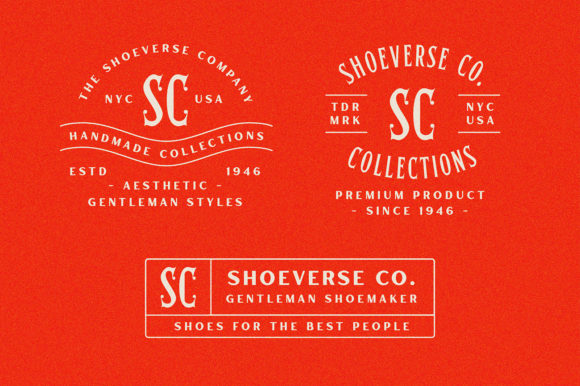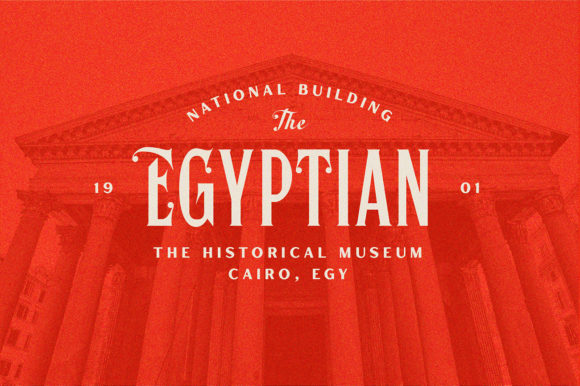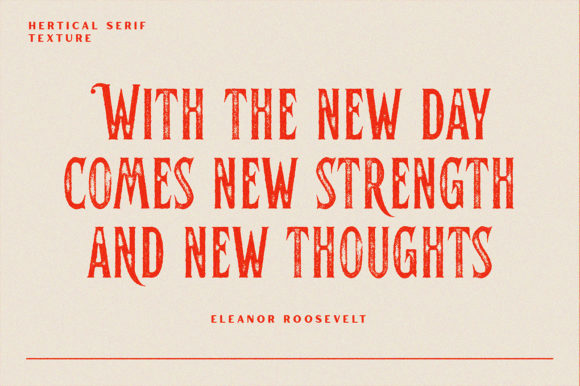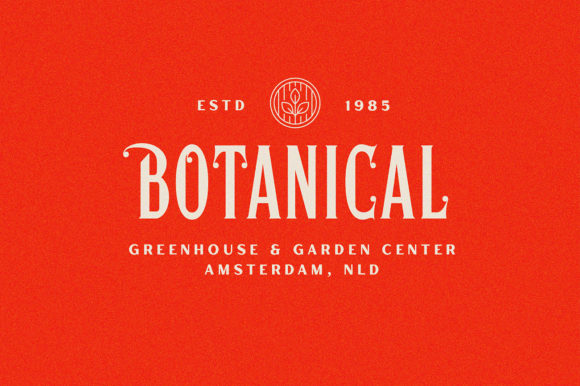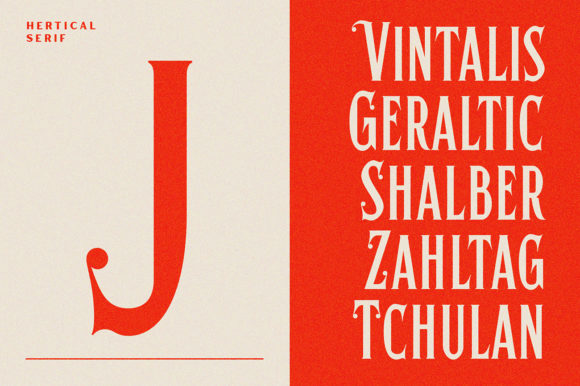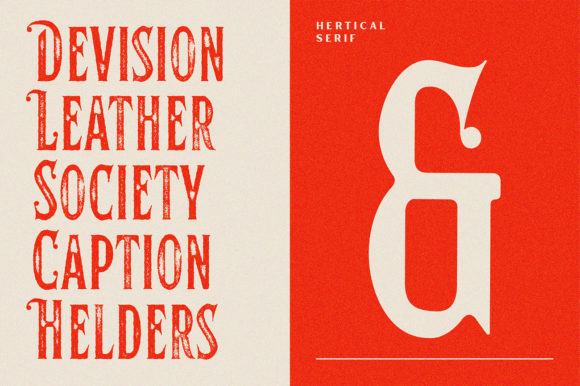
Introduction to Hertical Font
Introducing the Hertical Font, a stylish and unique font family that’s sure to elevate your designs to the next level. Whether you’re creating posters, thank you cards, quotes, or logos, this versatile font is the perfect addition to your design resource toolbox. With its high-quality, intricate details, the Hertical Font is a game-changer for designers looking to add a creative touch to their projects.
Not only will the Hertical Font help you stand out from the crowd, but it’s also incredibly easy to use, thanks to its transparent background and free download option. So why settle for ordinary when you can have extraordinary? Get ready to unleash your creativity with the Hertical Font and take your designs to new heights!
Key Features of Hertical Font
- Unique, creative font style ideal for a variety of design projects, including digital art, graphics, and web design.
- Transparent background, allowing for easy layering and blending with other design elements.
- Perfect for use in logos, headings, and body text, adding a touch of elegance and sophistication to any design project.
- Includes a comprehensive character set, including uppercase and lowercase letters, numbers, and punctuation marks, for complete versatility.
Honest Review: Hertical Font
I recently had the chance to work with Hertical Font on a creative project, and I must say it’s been a game-changer. This high-quality font is perfect for anyone looking to add a unique touch to their design. ✨
The Hertical Font features a transparent background, which makes it incredibly versatile and easy to use. Whether you’re working on a digital design or a print project, this font is sure to impress. I particularly love how easy it is to customize and manipulate the font to fit my needs. ✨
- Transparent background for easy use and customization
- Easy to manipulate and customize
However, I do have a few minor complaints. ⚠️ The font can be a bit overwhelming if used in large quantities, and the kerning can be a bit off at times. But overall, these are minor issues that don’t detract from the overall quality of the font.
Overall, I’m thoroughly impressed with Hertical Font. It’s a great addition to any designer’s toolkit, and I highly recommend it to anyone looking for a high-quality, versatile font.
Getting the Most Out of Hertical Font
For the best results, use Hertical Font in conjunction with other high-quality design resources. Experiment with different font sizes, colors, and layering techniques to create unique and eye-catching designs. You can also use Hertical Font as a free download, making it an excellent addition to your design library.
Hertical Font is perfect for a wide range of creative projects, including logos, graphics, presentations, and documents. Its transparent background and high quality make it an ideal choice for designers looking to add a creative touch to their work.